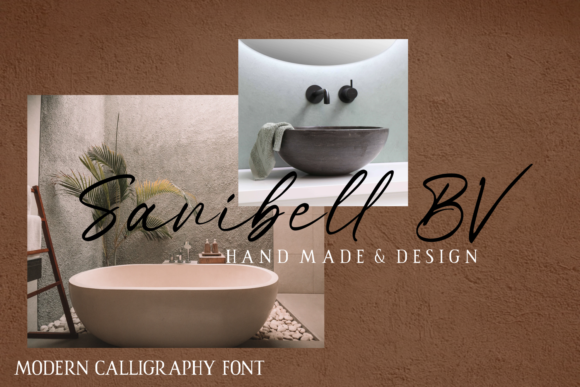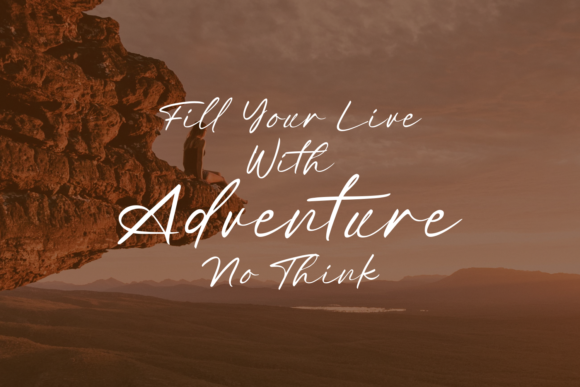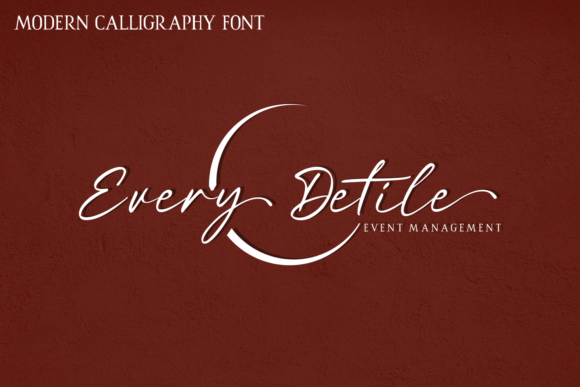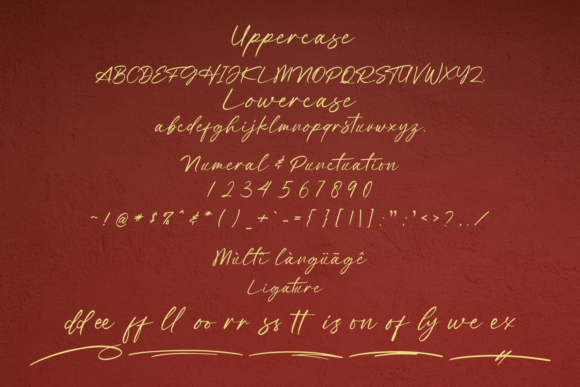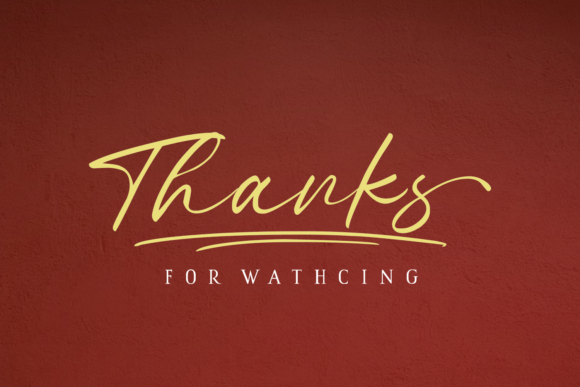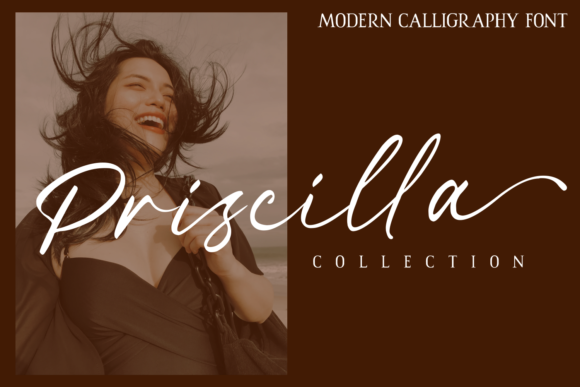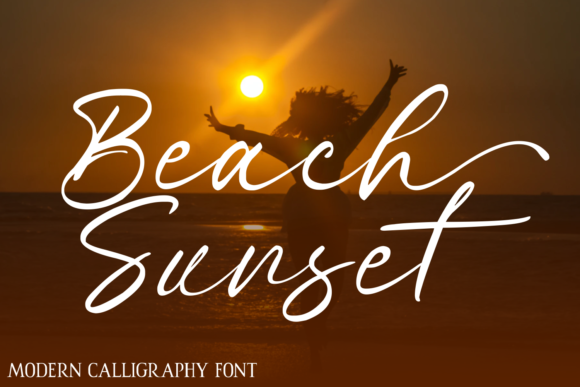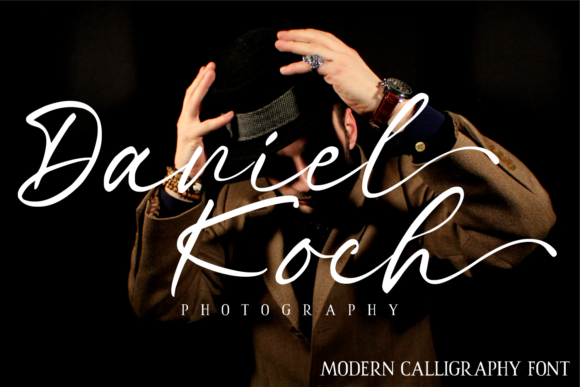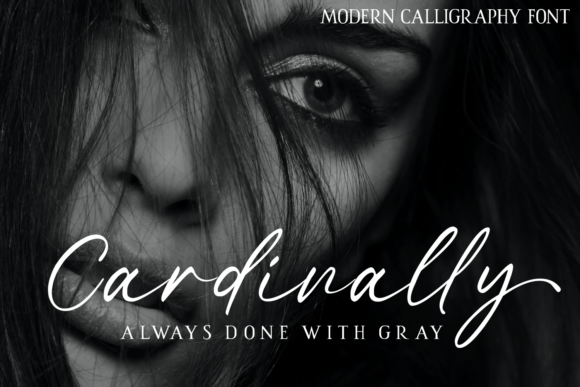
Red Buttery is a romantic and sweet calligraphy typeface that brings a touch of luxury to your design projects. With its flowing characters that dance along the baseline, this font exudes elegance and adds a special charm to any design.
The romantic nature of Red Buttery makes it a perfect choice for wedding invitations, love letters, greeting cards, and other projects that require a touch of romance and sophistication. Its graceful and delicate strokes create a sense of beauty and refinement, capturing the essence of timeless calligraphy.
Red Buttery’s PUA encoding ensures easy access to its amazing glyphs and ligatures. This means you can effortlessly incorporate decorative elements, swashes, and alternate characters into your designs, allowing for greater customization and creativity.
The versatility of Red Buttery allows it to be used in a variety of design projects. From branding materials to packaging, from social media graphics to blog headers, this font adds a luxurious spark that elevates the overall aesthetic and leaves a lasting impression.
Whether you’re aiming for a classic and elegant look or a whimsical and playful style, Red Buttery adapts to your needs and enhances the beauty of your projects. Its versatility and attention to detail make it a valuable asset in your font library.
In conclusion, Red Buttery is a romantic and sweet calligraphy typeface that adds a luxury spark to any design project. With its dancing baseline and PUA encoding, you can easily access its amazing glyphs and ligatures to create beautiful and customized designs. Embrace the elegance and charm of Red Buttery and let it bring your creations to life.